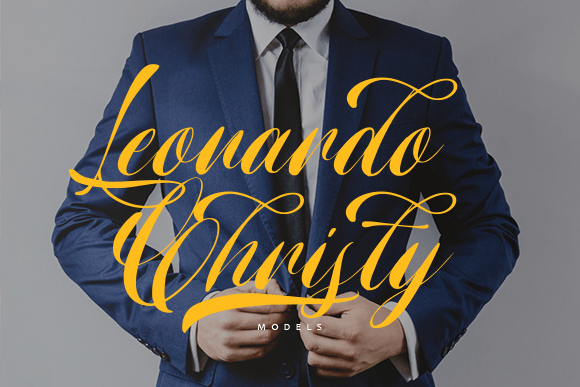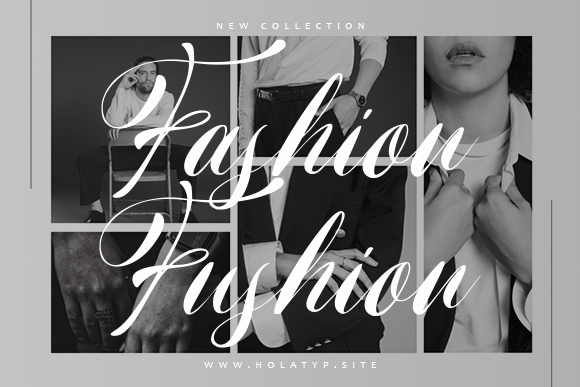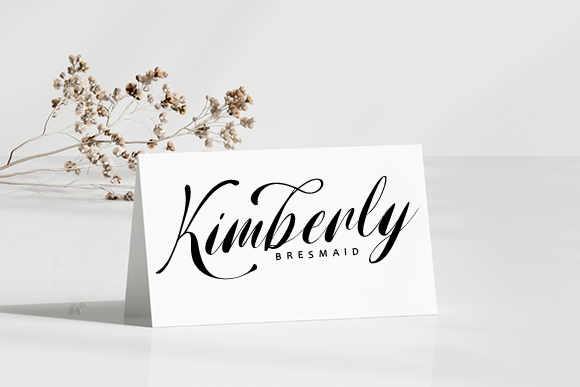
Introduction to Fayri Doyeon Font Font
Fonts play a crucial role in design, and the Fayri Doyeon Font font is a typeface that brings both character and versatility to any project. Whether you’re working on a branding project, a website, or a print design, the Fayri Doyeon Font font offers a unique style that can elevate your work.
Introducing Fayri Doyeon, an artfully crafted, handwritten font that exudes a distinctly original, messy brush style.
Brimming with character and charm, Fayri Doyeon seamlessly harmonizes with a vast array of applications – be it cutting-edge design projects, fashion-forward magazines, dynamic branding, eye-catching ads, romantic wedding invitations or trendsetting T-shirt designs Its versatility also shines across various social media platforms, effortlessly enhancing online content with an undeniably expressive aesthetic.
Key Features of Fayri Doyeon Font Font
Why Choose Fayri Doyeon Font Font?
The Fayri Doyeon Font font is more than just a typeface – it’s a design tool that helps you communicate your message with style and clarity. Its unique character set and versatile design make it suitable for a wide range of applications, from elegant invitations to bold headlines.
With its carefully crafted letterforms and balanced proportions, the Fayri Doyeon Font font ensures readability and visual appeal across all mediums.
What makes Fayri Doyeon Font font special?
The Fayri Doyeon Font font stands out with its unique design, exceptional readability, and versatility across various design applications.